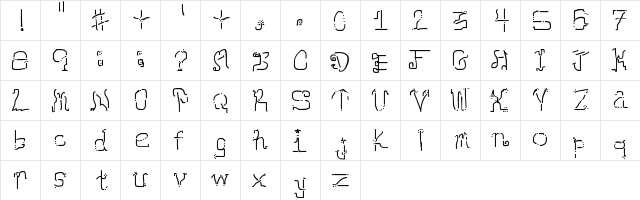
Neomarkerism Regular
Design Context for Neomarkerism Typeface
Neomarkerism is a composed and adaptable typeface that performs quietly and consistently across a wide range of design contexts.